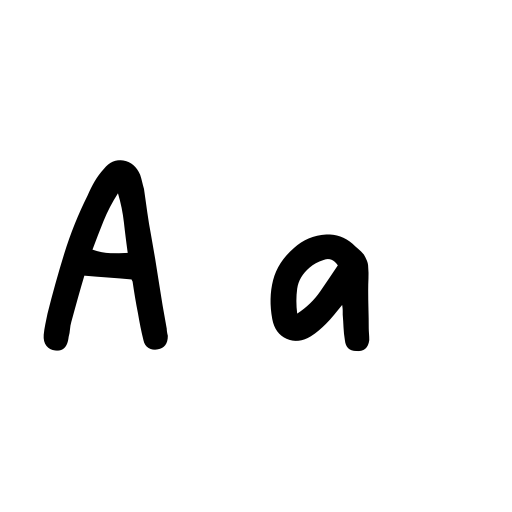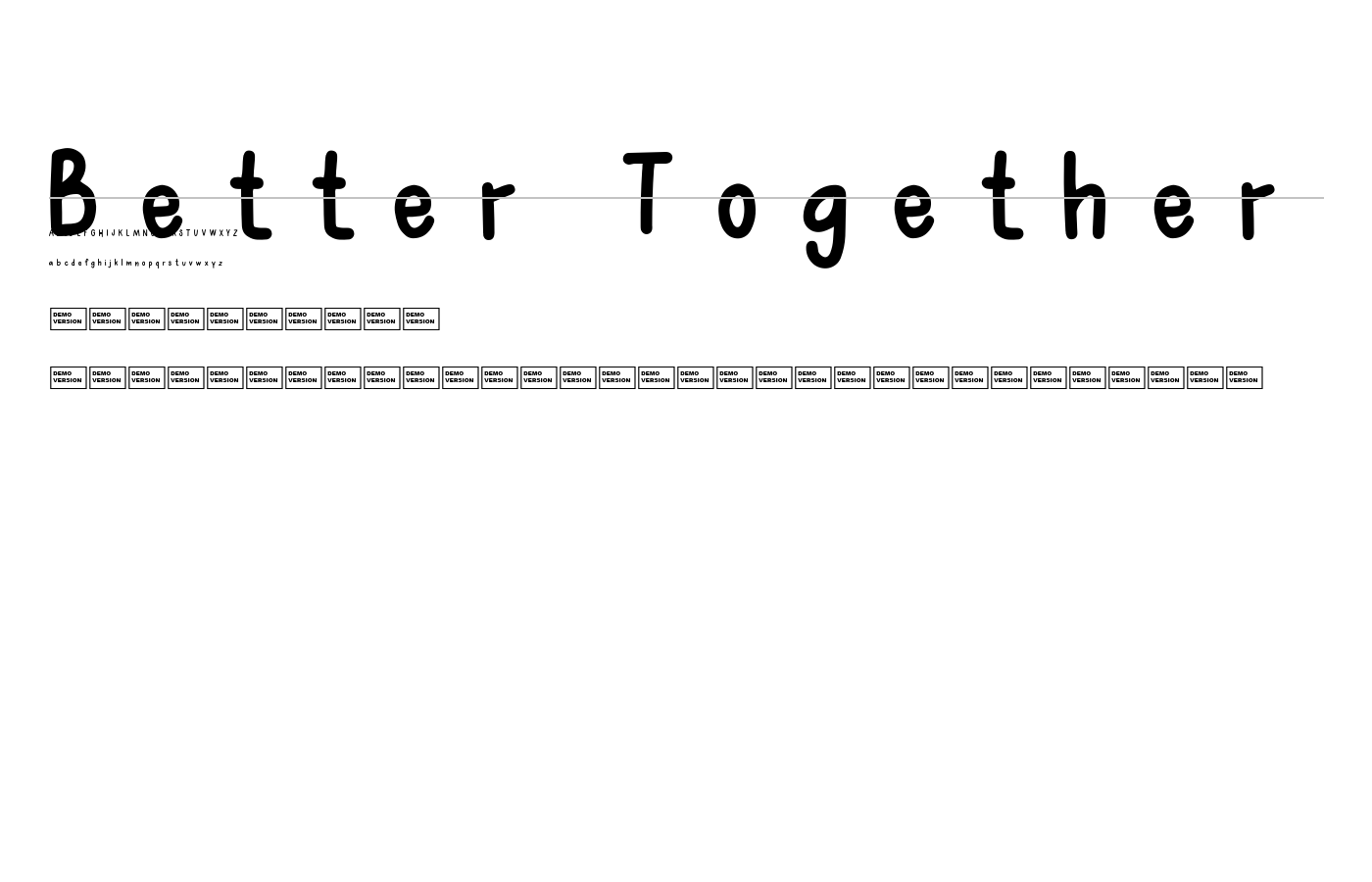
Better Together is a playful sans serif font characterized by its rounded, handwritten style and irregular stroke widths that give it a friendly, casual feel. Its tall x-height and simple letterforms make it easy to read, ideal for projects that want to convey warmth and approachability. This font works well for children’s materials, fun branding, and informal headlines where a personal touch is desired.
Better Together Font
About Better Together Font
| Font family | Better Together Font |
| Designer | Katsia Jazwinska |